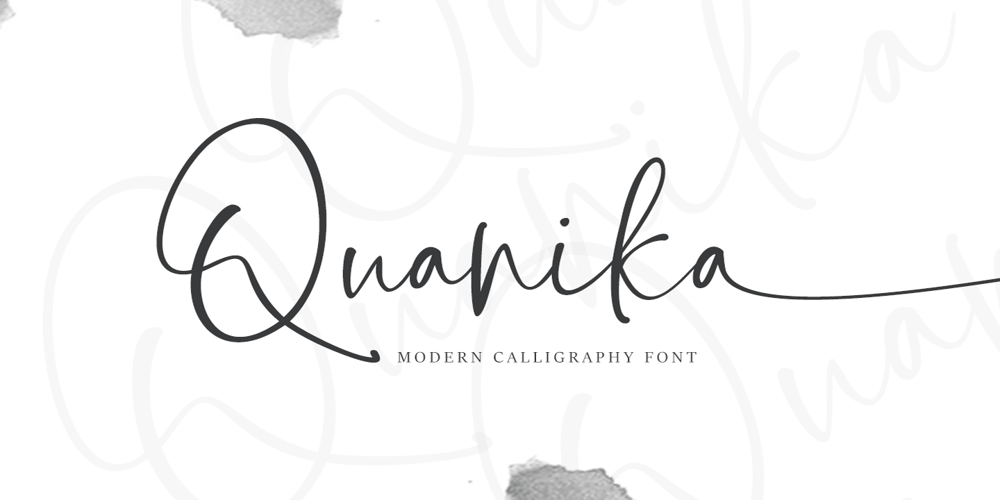
Quanika Font Family was designed by Roiyani Teungku and published by Artisan Studio. Quanika contains 1 styles and family package options. Quanika a work that is purely a result of handwriting, has a natural characteristic. this is perfect for invitations, signatures, blogs, social media, business cards, product brands.Quanikahas Stylistic standard, Stylistic Initial, Stylistic Teminal and ligatures. and includes uppercase and lowercase letters, numbers and punctuation marks.FILE INCLUDEQuanikay (OpenType,PUA)Multilingual Support OpenType smart programs such as Adobe Photo Shop, Adobe Illustrator, Adobe Indesign, Corel Draw and Microsoft Office.special greetings for all, all of us all smoothly in running the routinent